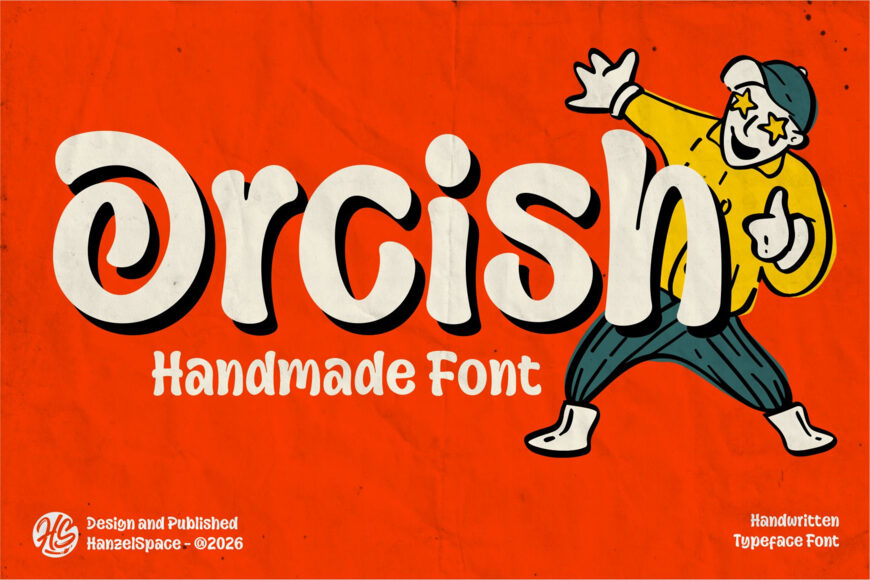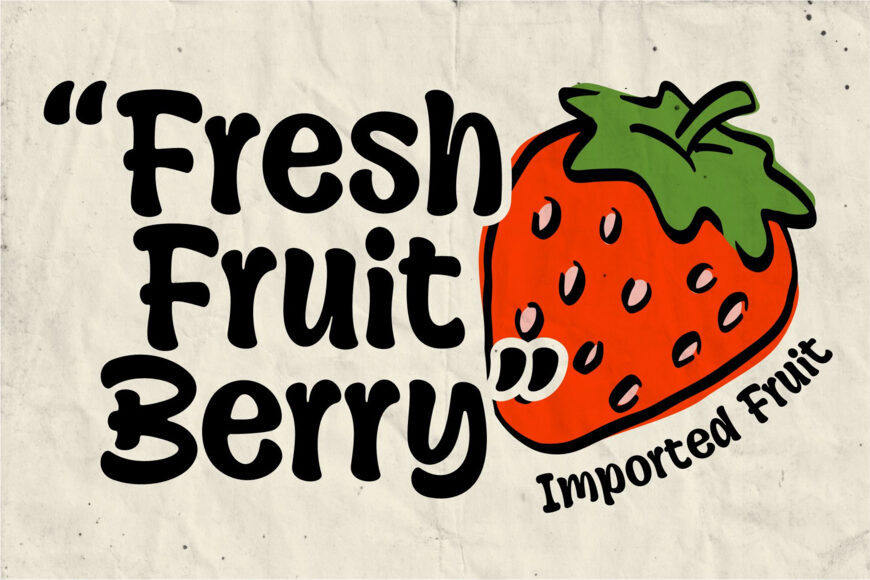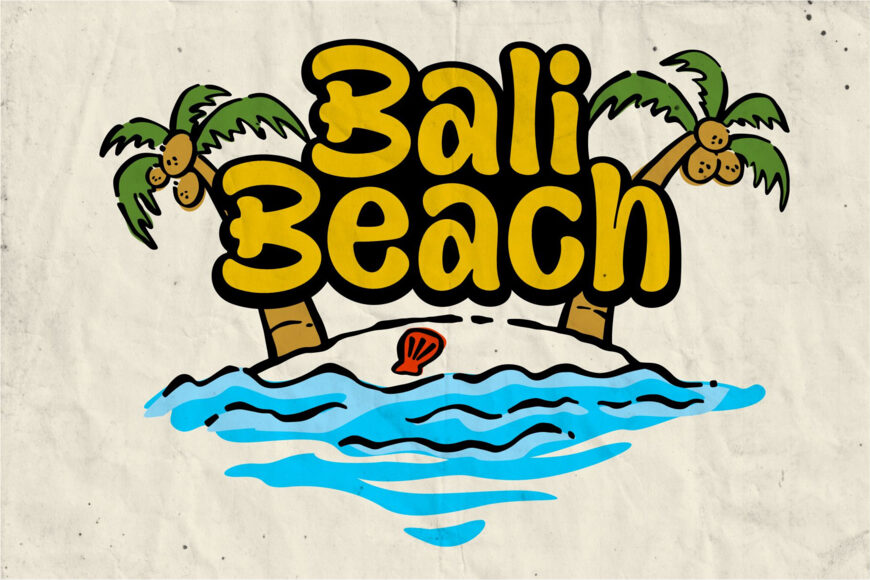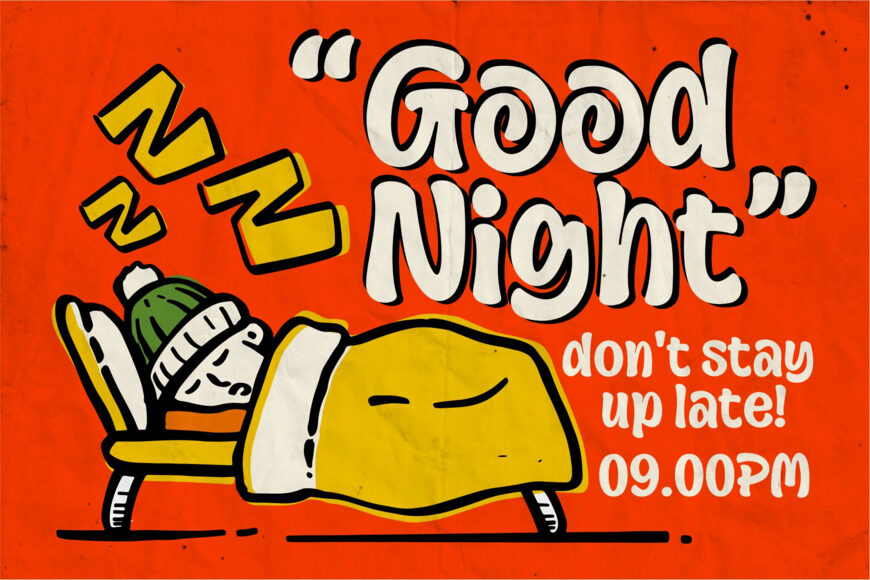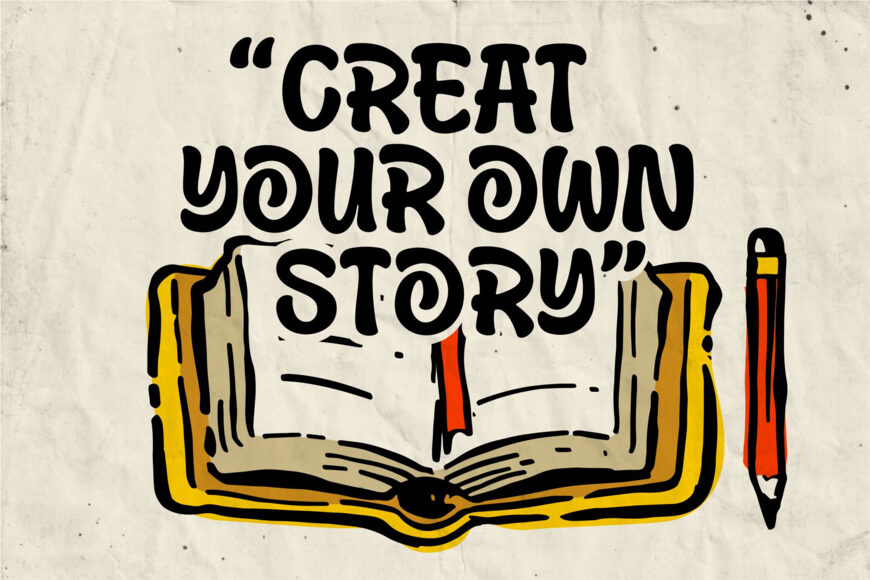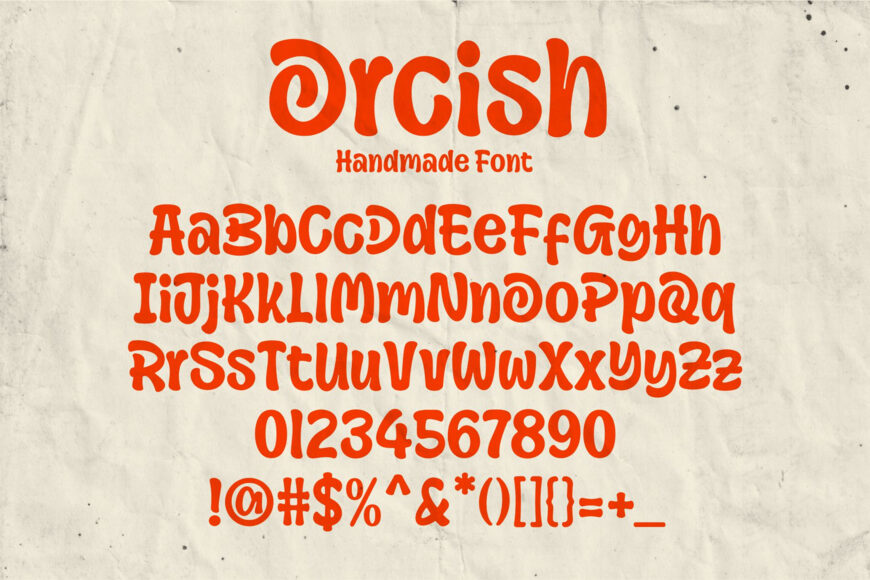
Orcish brings a sense of warmth and charm to any visual project. Perfect for packaging, branding, posters, or social media, this typeface captures the essence of playfulness with its unique curves and interesting shapes. It’s a typeface that instantly makes any design more approachable and expressive.